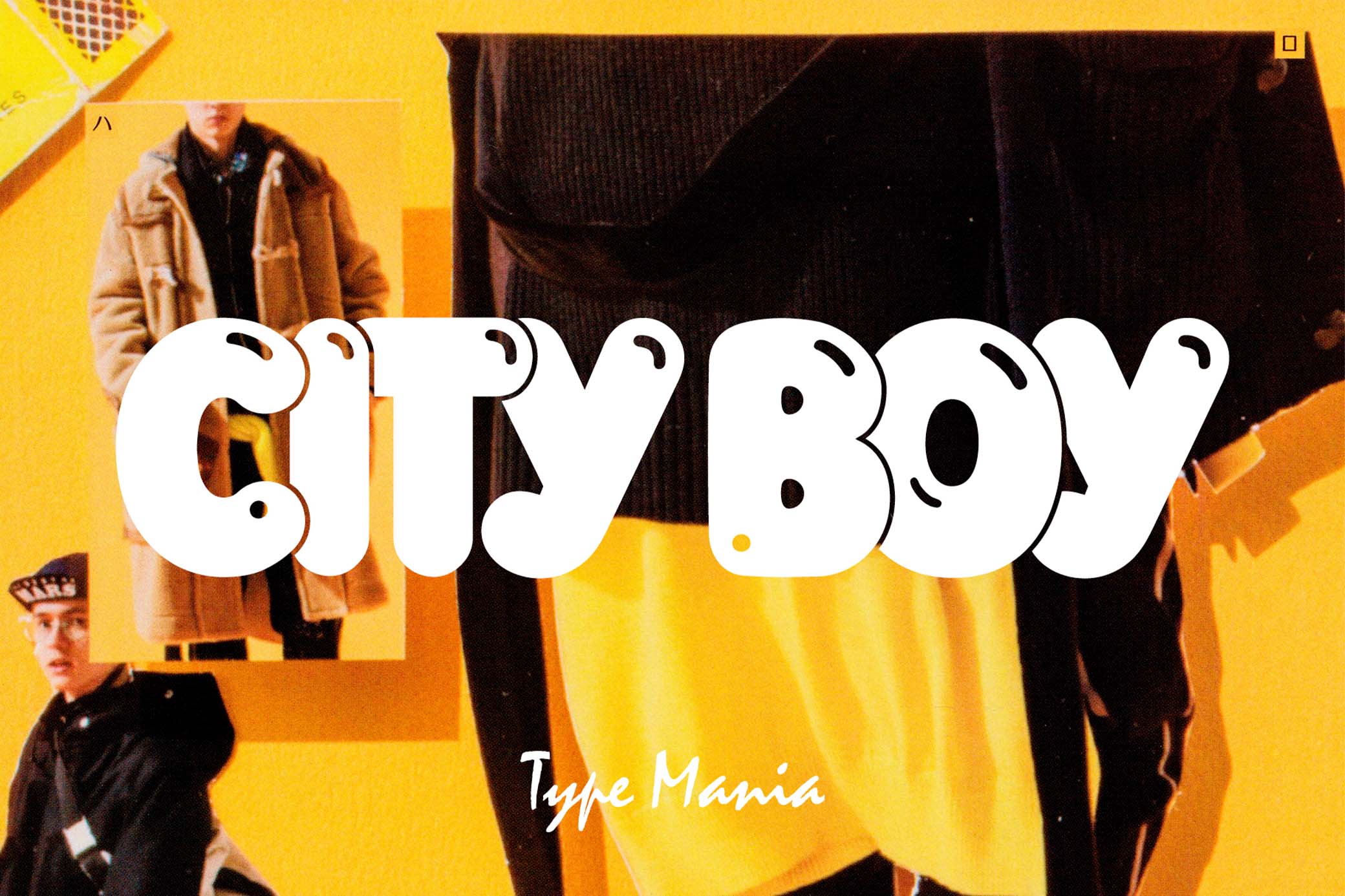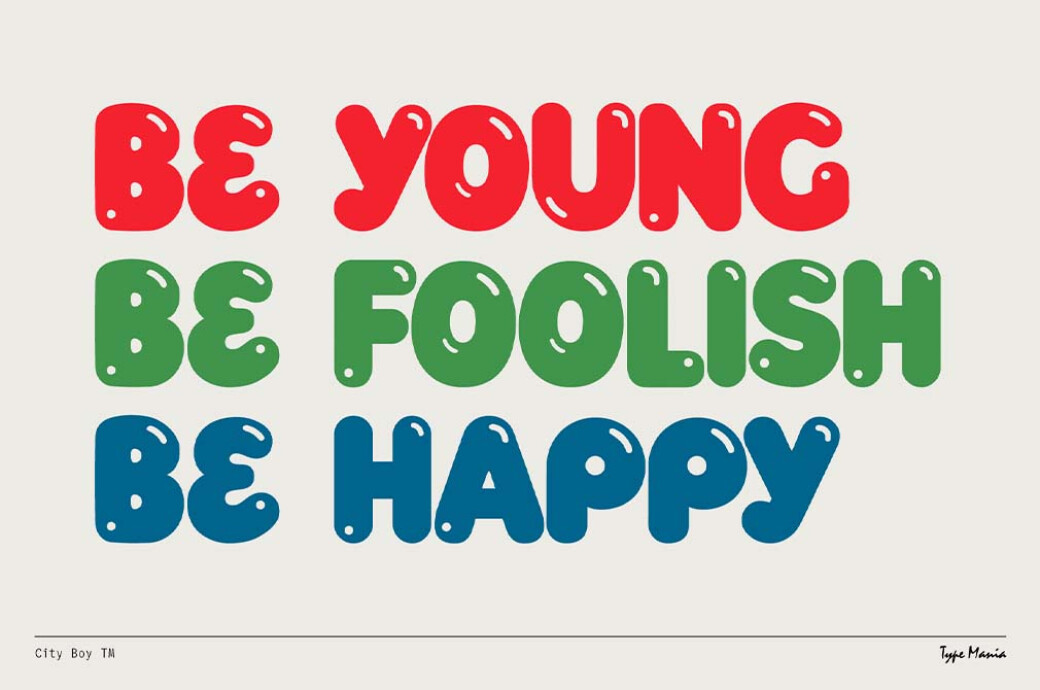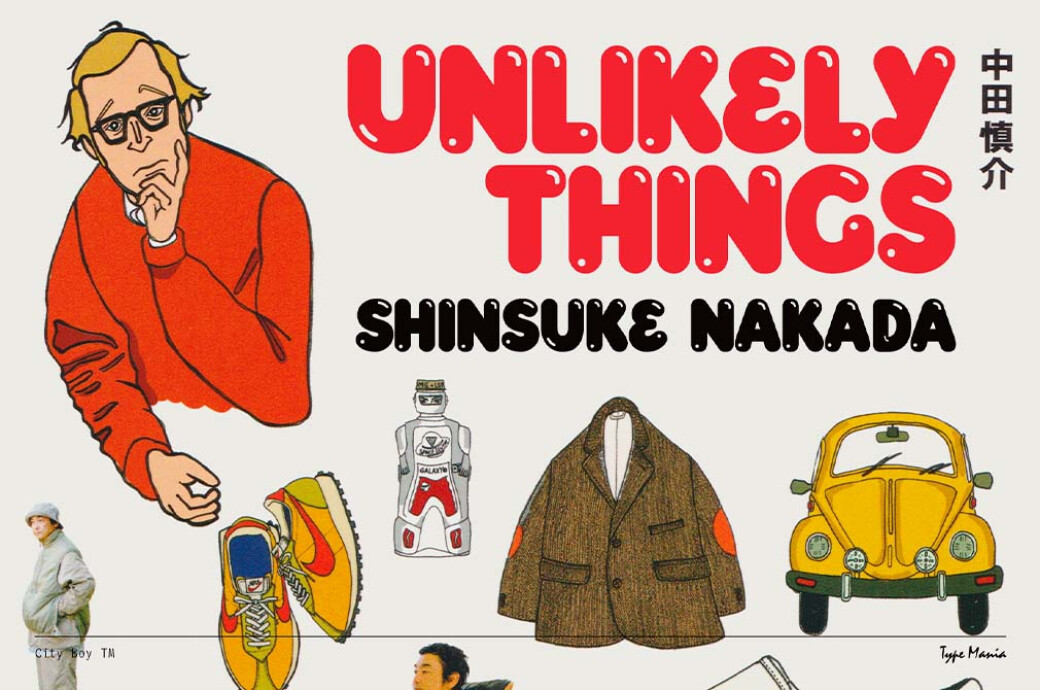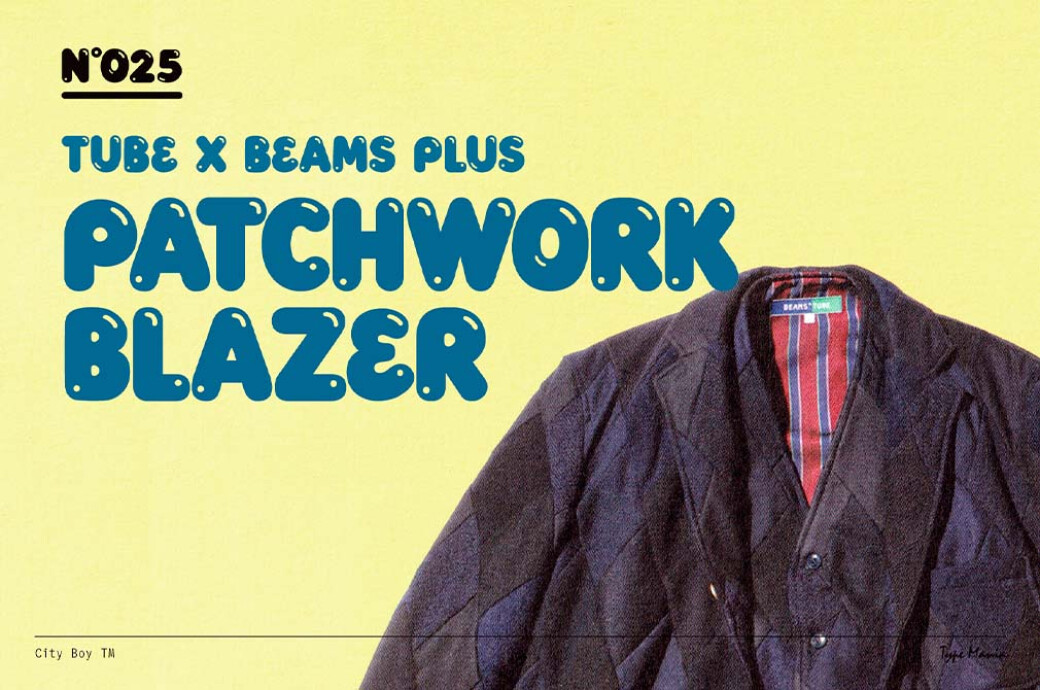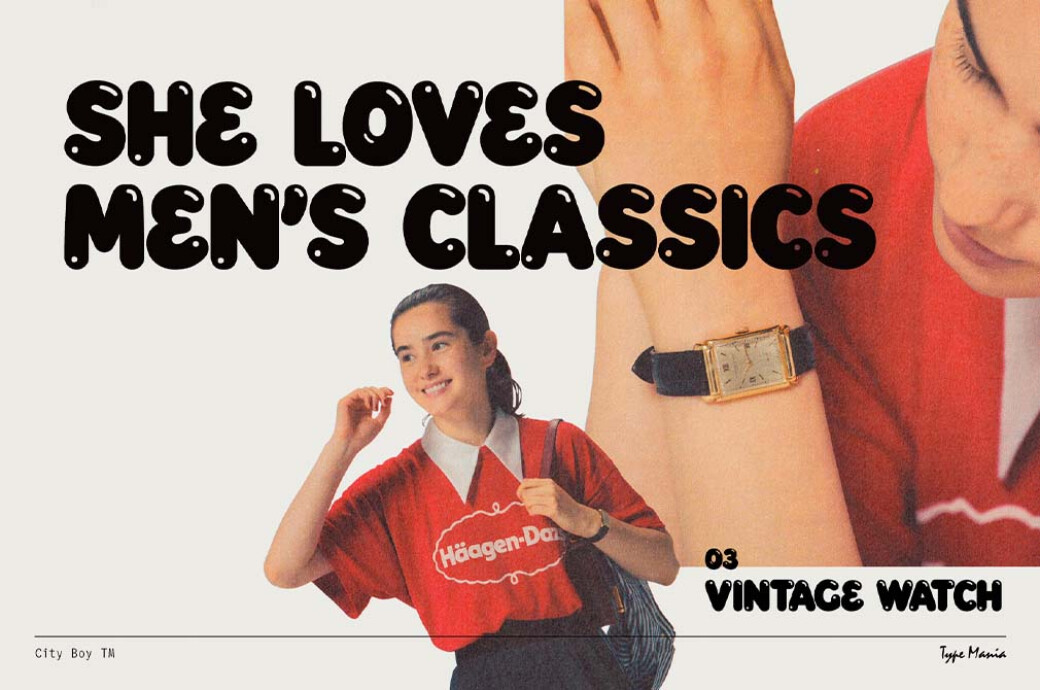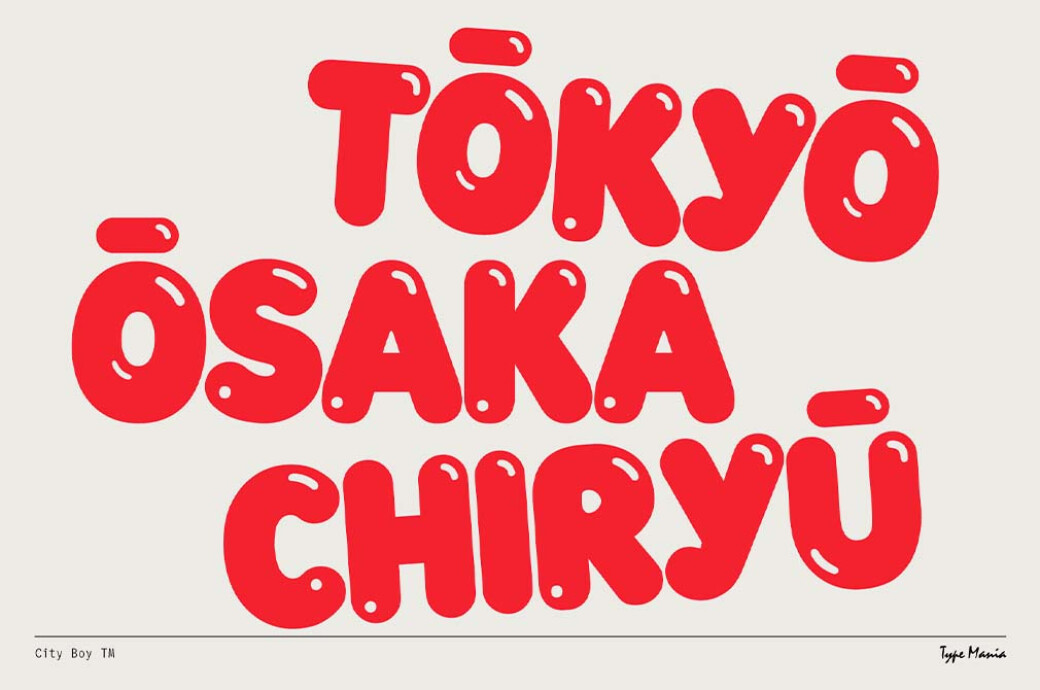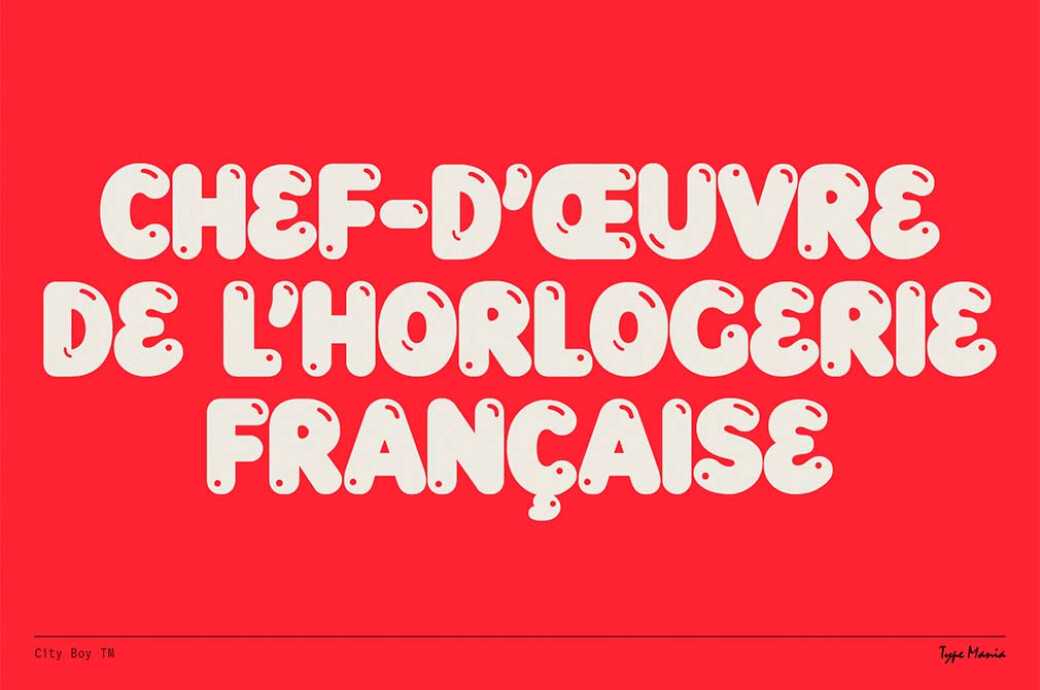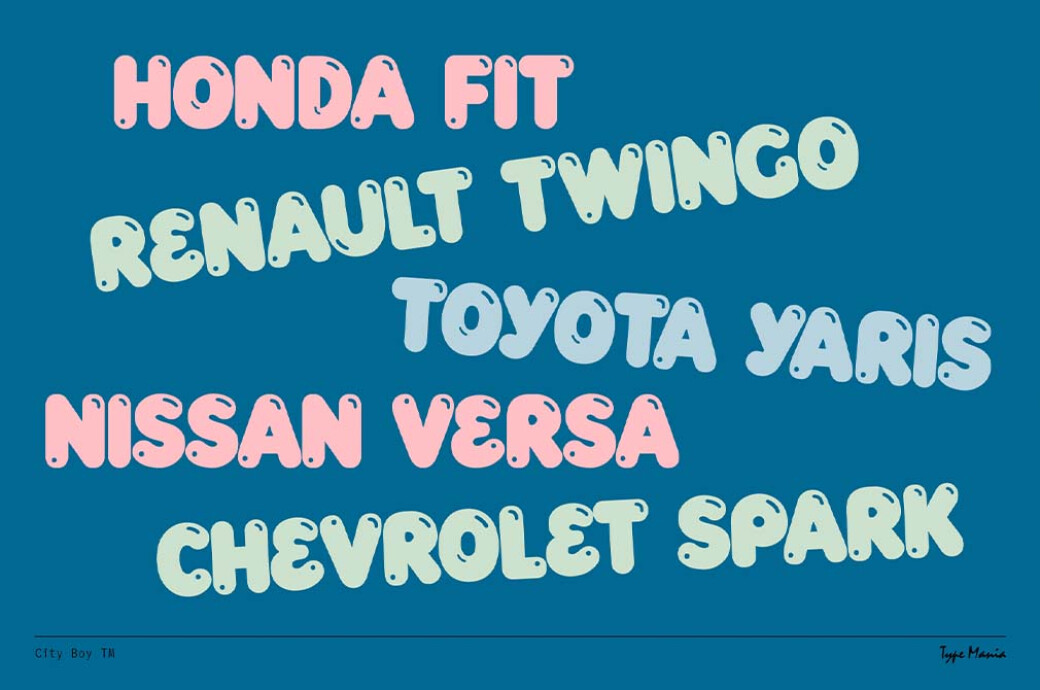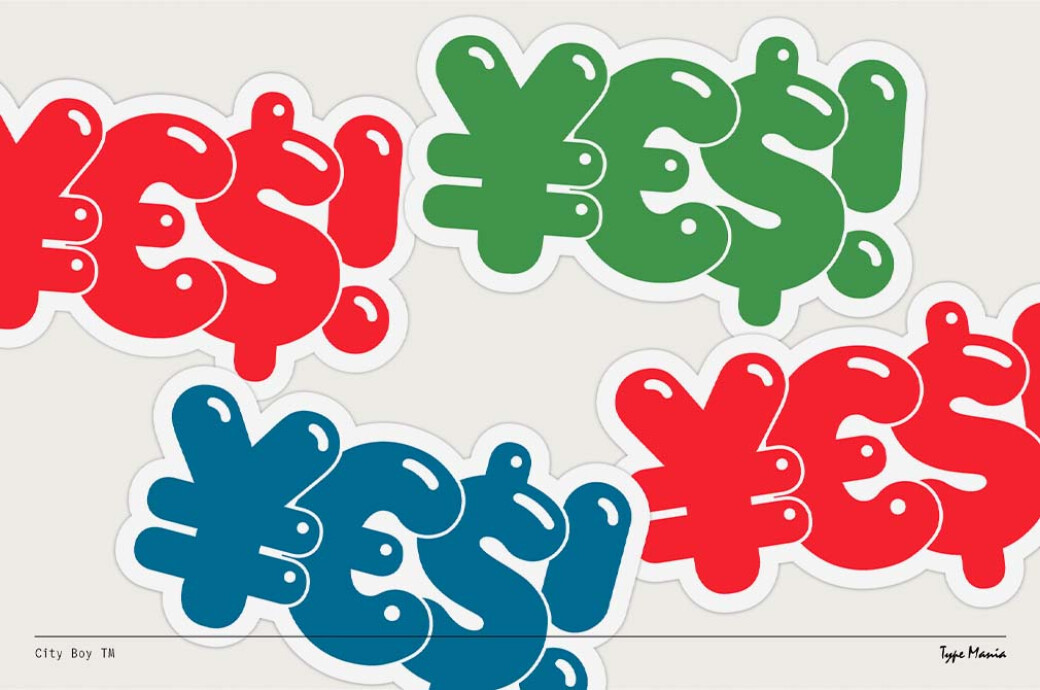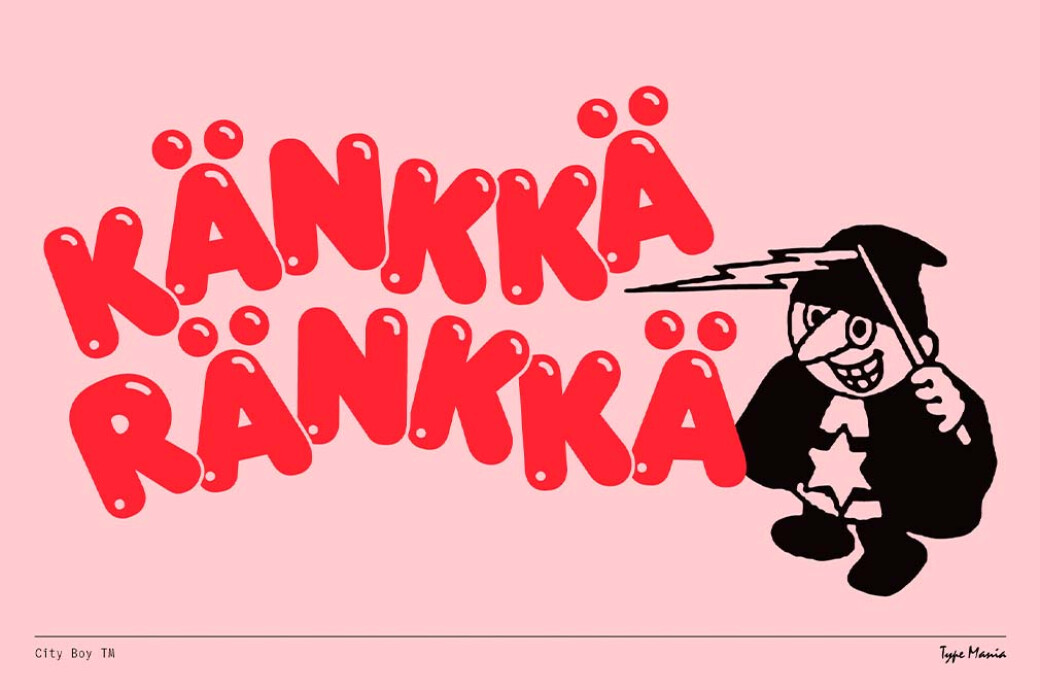
City Boy TM — Bubbly Display Font
Typography gives you a rare opportunity to travel the world without even closing the Photoshop app. It's like spinning the globe and stopping in Tokyo, where City Boy TM is from.
This display font merges two concepts every designer is obsessed with in 2024: bubble shapes and retro Japanese fashion magazines. It feels Ginza-made, yet with some ‘gaijin' polishing, which makes it good for an infinite range of projects. There is a complete character set and multilingual support — a total of 208 glyphs at your disposal.